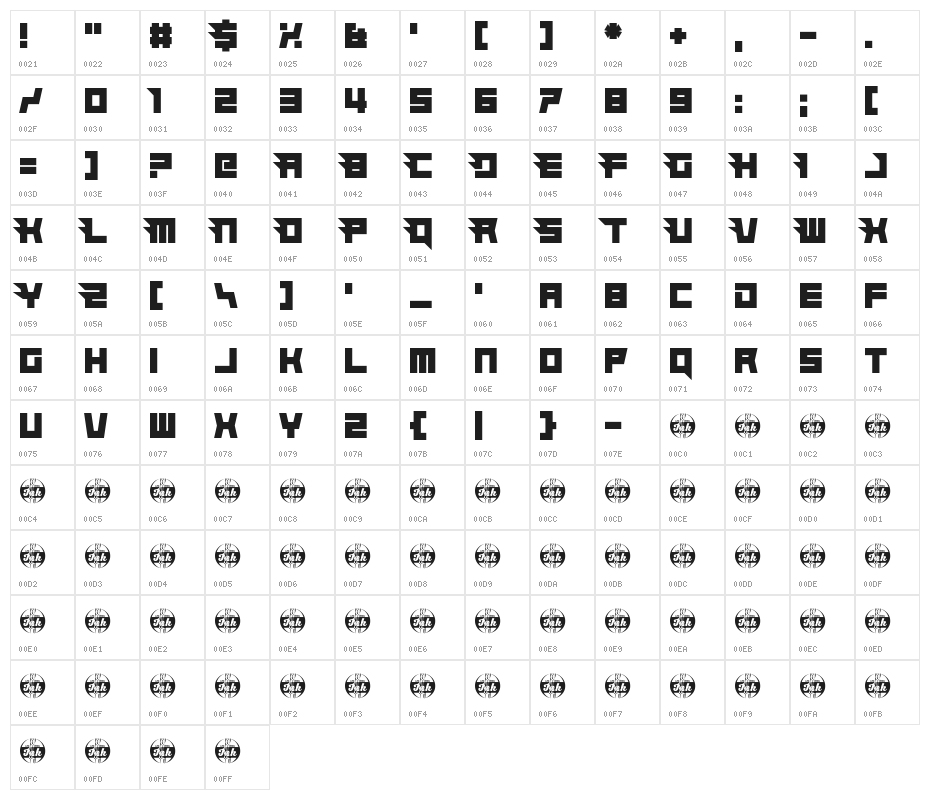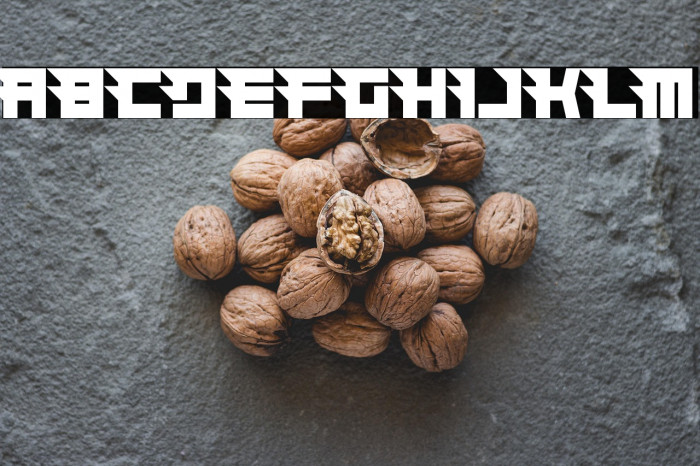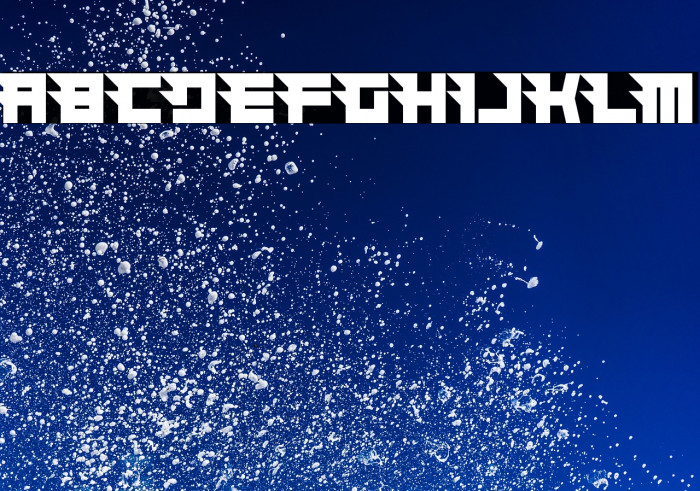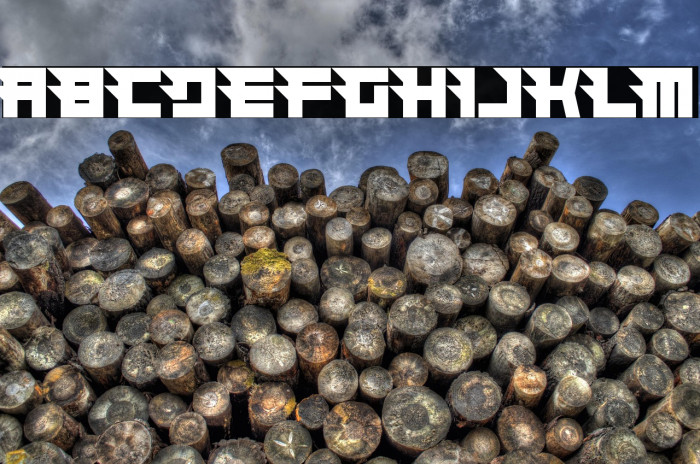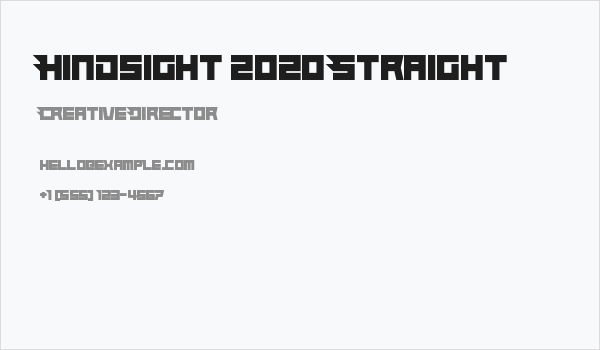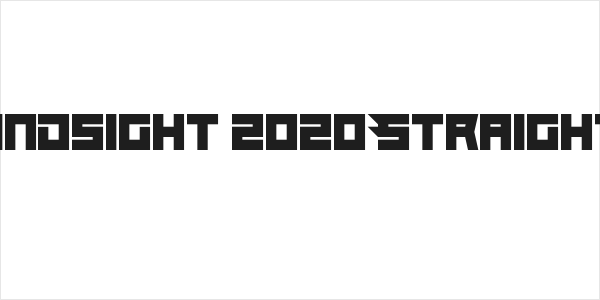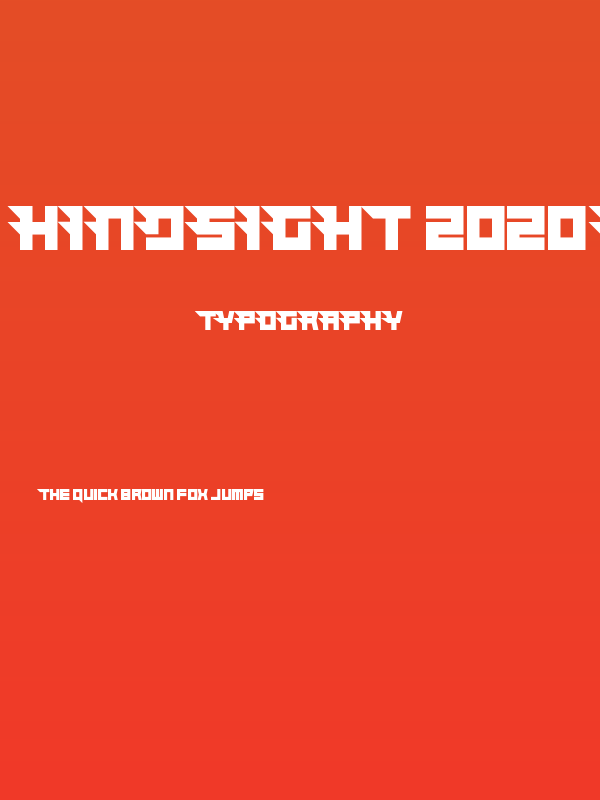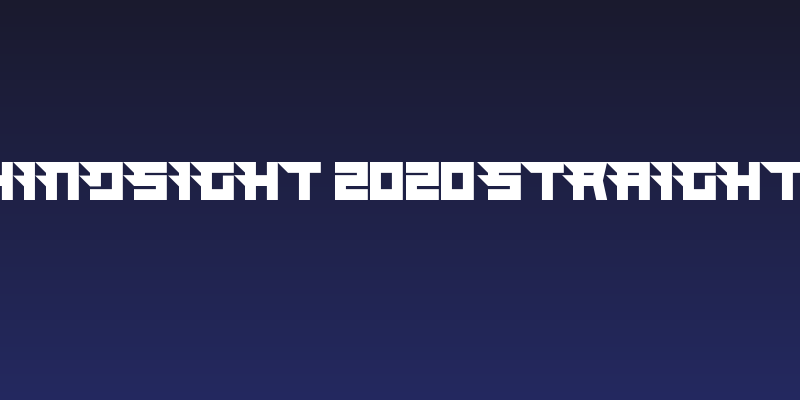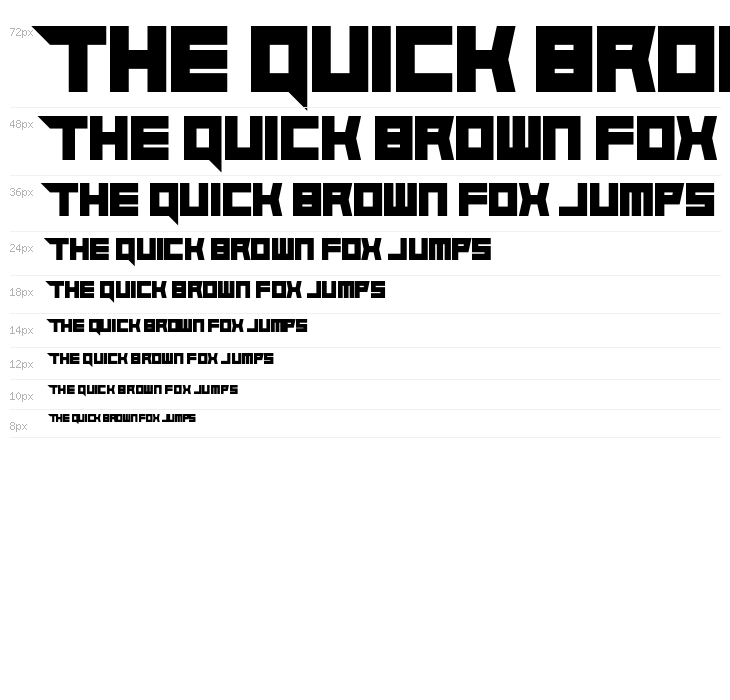
Hindsight 2020 Straight Font
Hindsight 2020 Straight Description
This font features a bold, geometric design with sharp angles and a futuristic aesthetic. The characters are constructed with a blocky, angular style that gives a sense of movement and modernity. The uppercase letters are particularly striking, with each character incorporating unique cuts and angles that create a dynamic visual effect. The numbers and special characters maintain this bold, angular theme, ensuring consistency across the font. This design is ideal for projects that require a strong, impactful visual presence.
| Proposed Projects | Ideal for sci-fi themed designs, video game graphics, posters, and branding that requires a modern, edgy look. |